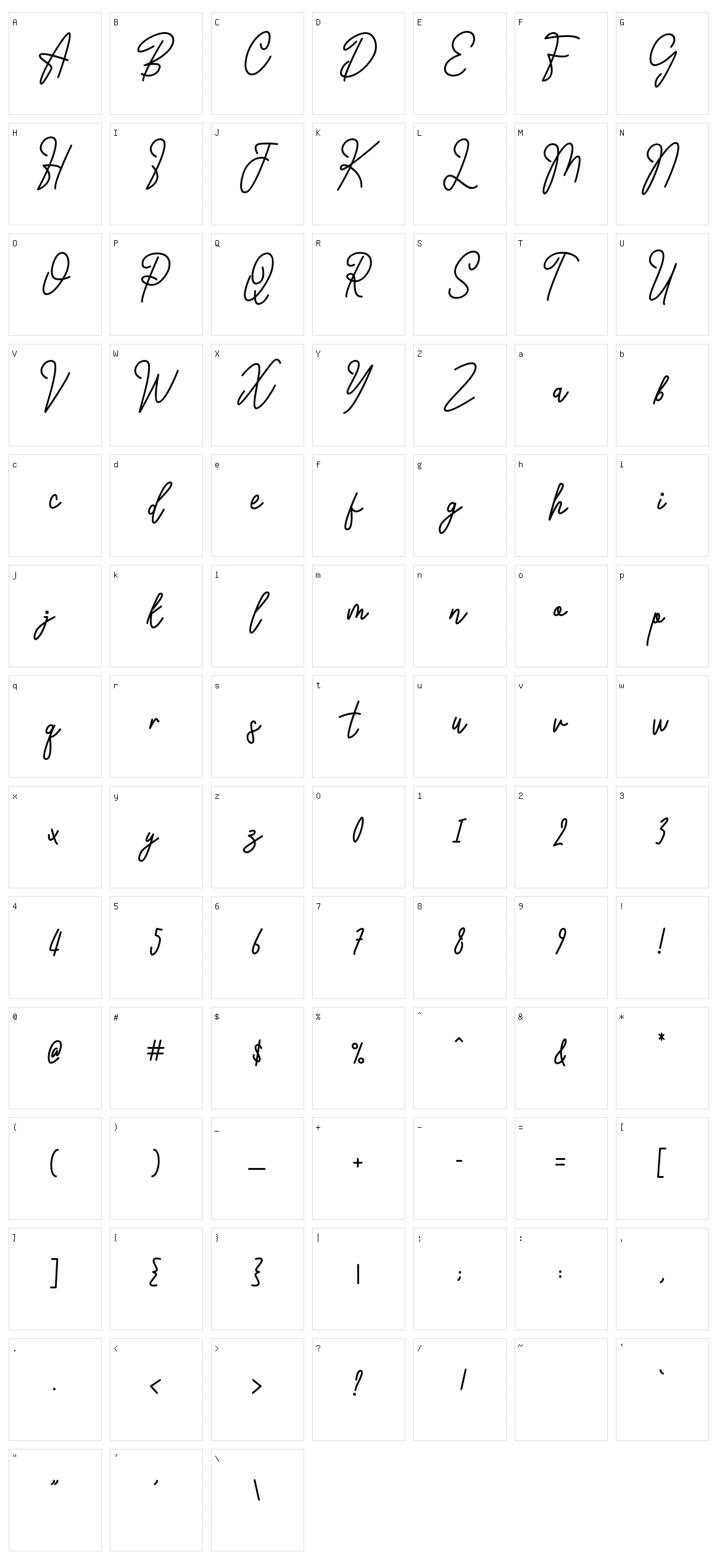
The free font Michigan is carefully designed by Kong Font, showcasing a thoughtful balance of creativity and usability and falls under the Script font style. When you download the ZIP file, it contains only 129.52 KB of font files, making it lightweight and quick to download. Please review the license details below to understand permitted usage and distribution rights. If license information is not available, we recommend using this font for personal projects only or contacting the author directly for commercial usage permissions.